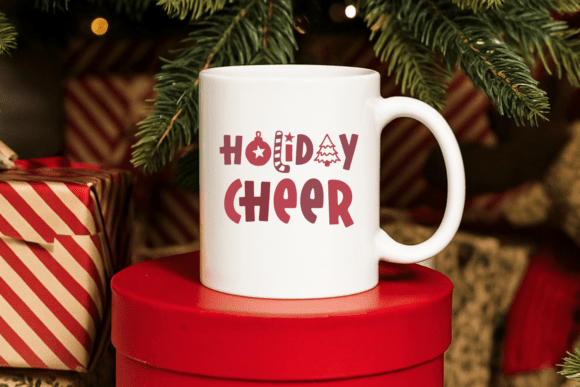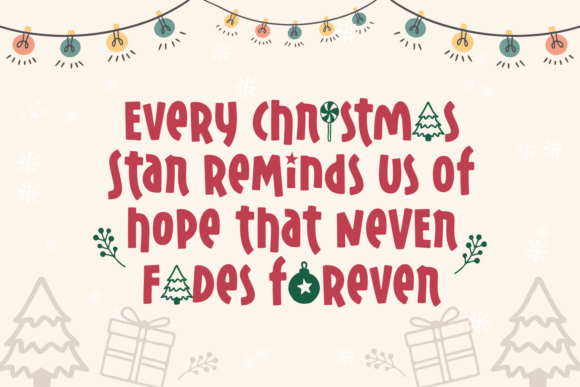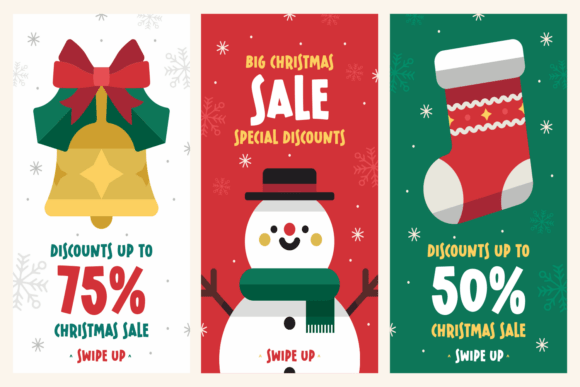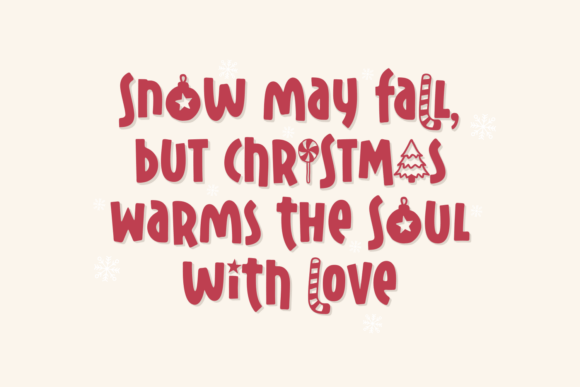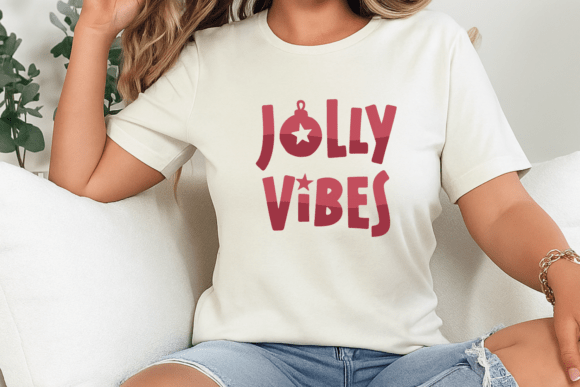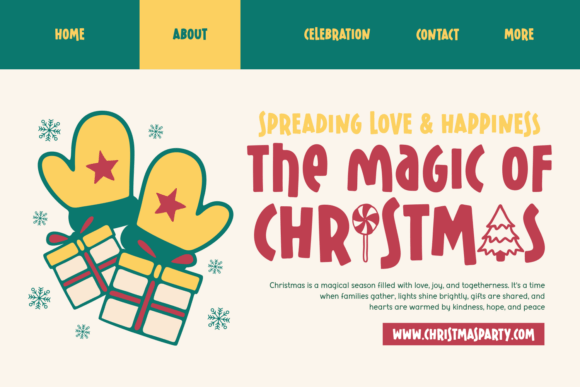
Doodlie Christmas Font: Add a Touch of Holiday Cheer to Your Designs
The holiday season is upon us, and what better way to spread joy and festive cheer than with a special font that captures the essence of Christmas? Introducing Doodlie Christmas, a fun, playful, and festive typeface that perfectly embodies the joyful spirit of the holiday season. With its doodle-inspired shapes and charming hand-drawn details, this font is sure to add warmth and personality to your designs.
A Font that Embodies the Holiday Spirit
Doodlie Christmas is more than just a font – it’s a bundle of Christmas cheer wrapped in every character. The quirky details, such as candy cane stripes, ornaments, and Christmas tree touches, give each letter a unique and magical look. Whether you’re creating Christmas cards, holiday invitations, party decorations, festive mugs, tote bags, posters, gift tags, or even social media graphics, Doodlie Christmas will make your projects stand out with a cheerful holiday vibe.
Doodlie Christmas is a versatile font that’s perfect for designers and crafters alike. With its playful and festive design, it’s ideal for a wide range of projects, from digital designs to print materials. Whether you’re creating professional-looking designs or fun and quirky crafts, this font is sure to add a touch of holiday magic to your work.
Key Features of Doodlie Christmas Font
- Fun and playful design: Doodlie Christmas features a unique and playful design that’s sure to add a touch of holiday cheer to your projects.
- Hand-drawn details: The font’s hand-drawn details give it a charming and personalized look that’s perfect for holiday designs.
- Doodle-inspired shapes: The font’s doodle-inspired shapes add a quirky and whimsical touch to your designs.
- Quirky details: The font’s quirky details, such as candy cane stripes and Christmas tree touches, give each letter a unique and magical look.
- Versatile: Doodlie Christmas is perfect for a wide range of projects, from digital designs to print materials.
How to Use Doodlie Christmas Font
Using Doodlie Christmas font is easy and fun. Here are a few ideas to get you started:
- Create festive holiday cards: Use Doodlie Christmas to create personalized and festive holiday cards for your loved ones.
- Design holiday party decorations: Add a touch of holiday cheer to your party decorations with Doodlie Christmas.
- Make festive mugs and tote bags: Use Doodlie Christmas to create fun and quirky designs for mugs and tote bags.
- Create social media graphics: Add a touch of holiday magic to your social media graphics with Doodlie Christmas.
Tips and Tricks for Using Doodlie Christmas Font
Here are a few tips and tricks to help you get the most out of Doodlie Christmas font:
- Experiment with different colors: Doodlie Christmas looks great in a variety of colors, so don’t be afraid to experiment and find the perfect color scheme for your project.
- Mix and match with other fonts: Doodlie Christmas pairs well with other fonts, so try mixing and matching it with other fonts to create a unique look.
- Add graphics and illustrations: Doodlie Christmas looks great with graphics and illustrations, so try adding some festive graphics to your project.
Doodlie Christmas font is a fun, playful, and festive typeface that’s perfect for adding a touch of holiday cheer to your designs. With its doodle-inspired shapes and charming hand-drawn details, this font is sure to make your projects stand out with a cheerful holiday vibe. Whether you’re a designer or crafter, Doodlie Christmas is a versatile font that’s perfect for a wide range of projects. So why not give it a try and make this Christmas truly unforgettable?